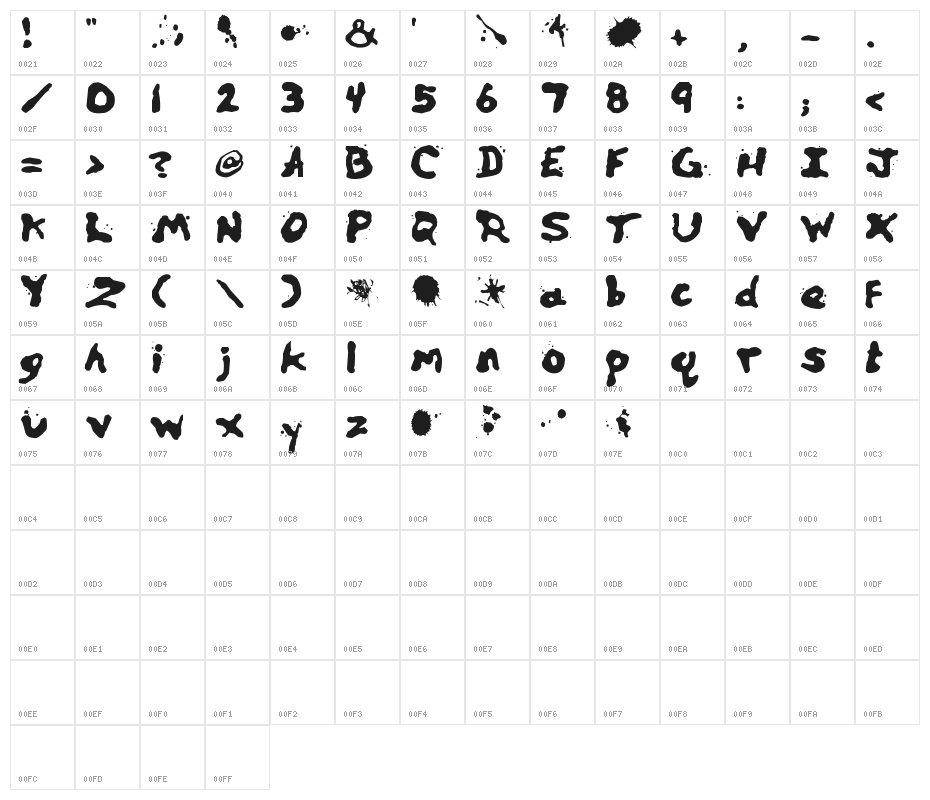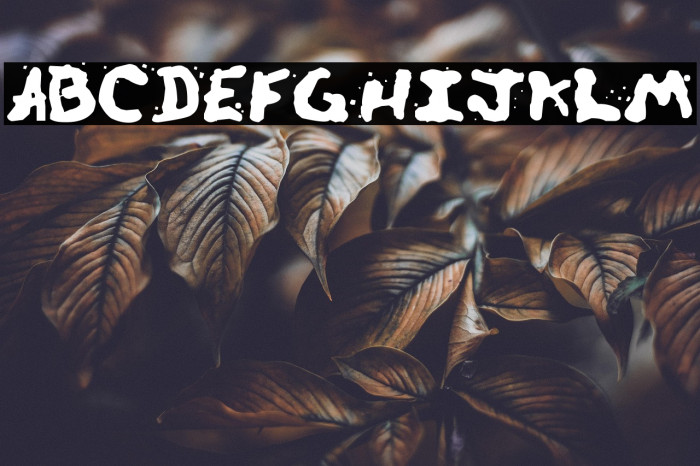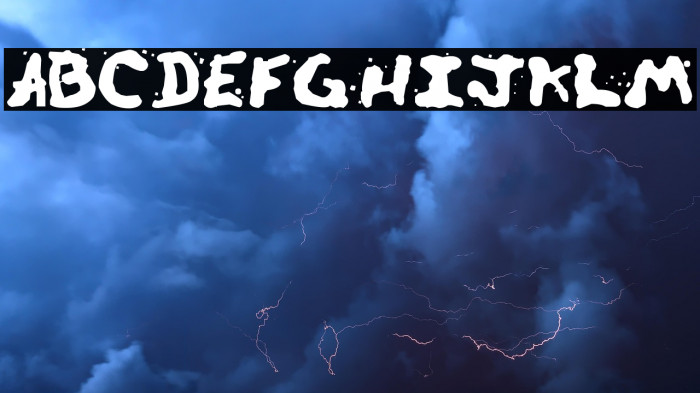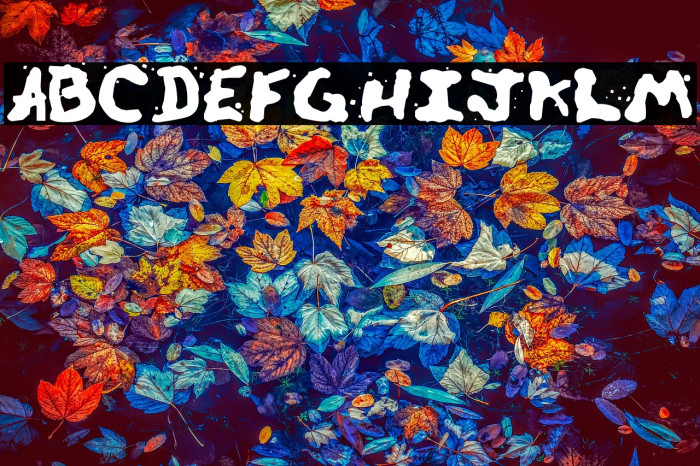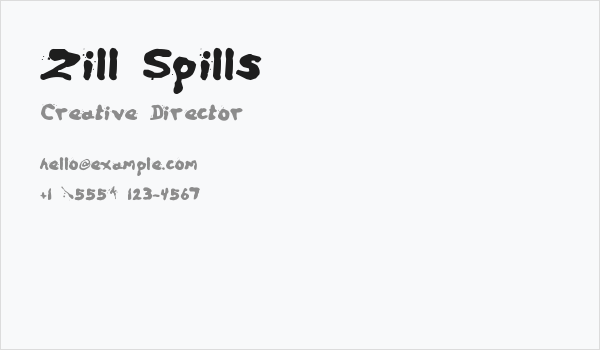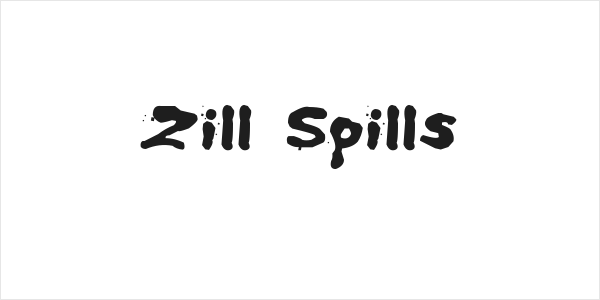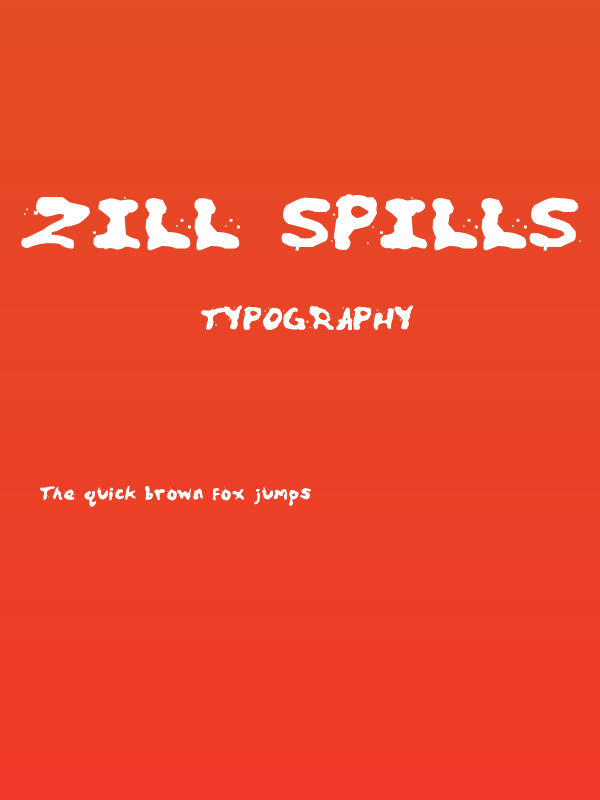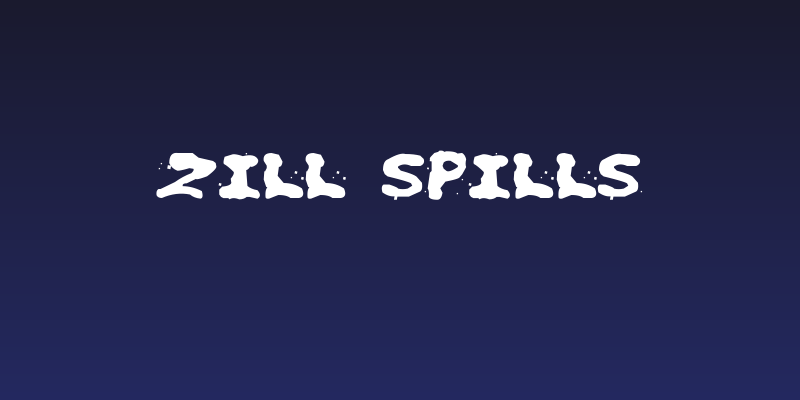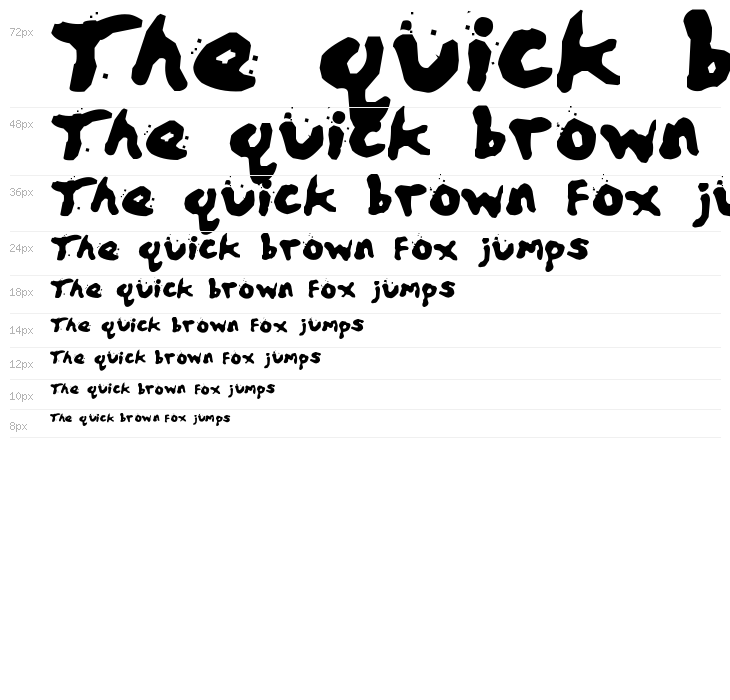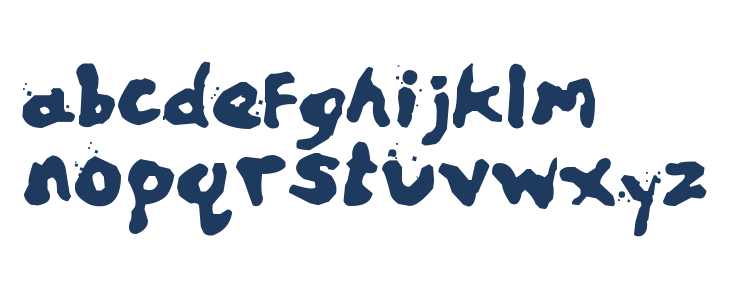
Zill Spills Font
Zill Spills Description
This font features a bold, playful design with a splattered ink effect, giving it a unique and artistic appearance. The characters are irregularly shaped, with varying thicknesses that create a dynamic and energetic look. The uppercase and lowercase letters maintain a consistent style, while the numbers and special characters add to the font's quirky charm. The overall design is reminiscent of hand-drawn lettering, making it ideal for creative projects that require a touch of whimsy and individuality.
Overall StyleArtistic, Playful
Use CaseHeadlines, Posters, Creative Branding
Proposed ProjectsIdeal for artistic projects, posters, album covers, and creative branding.